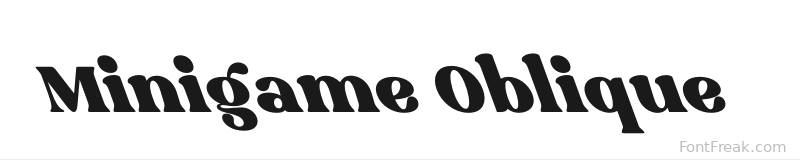
Minigame Oblique
About Minigame Oblique
Minigame Oblique is a distinctive display typeface designed by Kong Font, released in 2020. As a unique oblique font, it captures attention with its playful yet sophisticated style, making it ideal for various creative projects. The font features a moderate stroke weight with a consistent contrast, giving it a dynamic feel that enhances readability while adding a touch of flair. The slightly slanted letters add a sense of movement, making it perfect for designs that require a modern and energetic look.
The spacing between characters is well-balanced, contributing to its overall legibility, while the italicized style brings a sense of personality that is rarely found in standard fonts. This versatility makes Minigame Oblique a fantastic choice for a variety of applications. It shines in environments such as gaming graphics, vibrant event flyers, and engaging social media posts. Additionally, it can be effectively used for product packaging, where it can draw in consumers with its unique character, and even in fashion branding, where its stylish appearance can resonate with trendy audiences.
In a crowded market of typefaces, Minigame Oblique distinguishes itself with its playful elegance, making it a valuable addition to any designer's toolkit. Its ability to convey both fun and professionalism gives it the versatility needed to fit a wide range of creative endeavors.